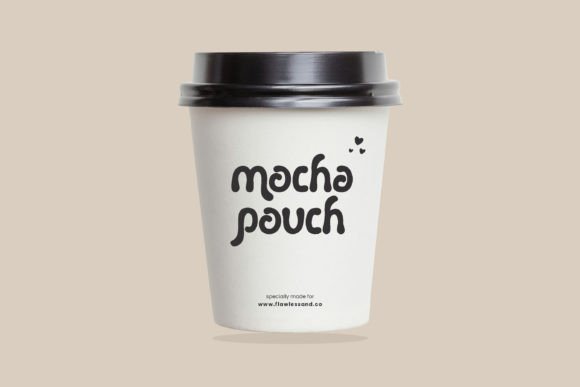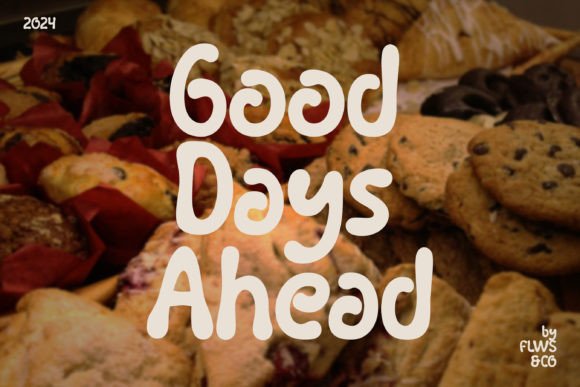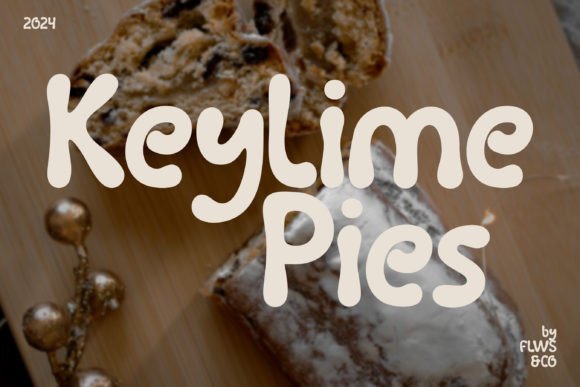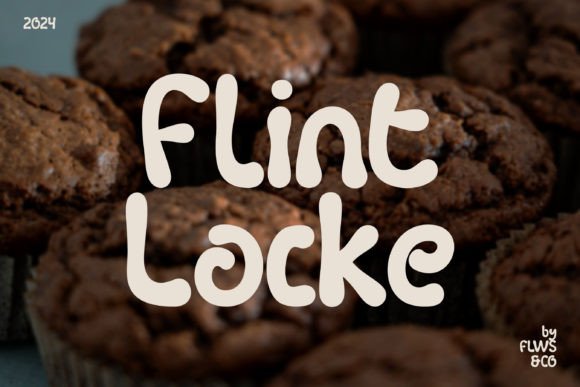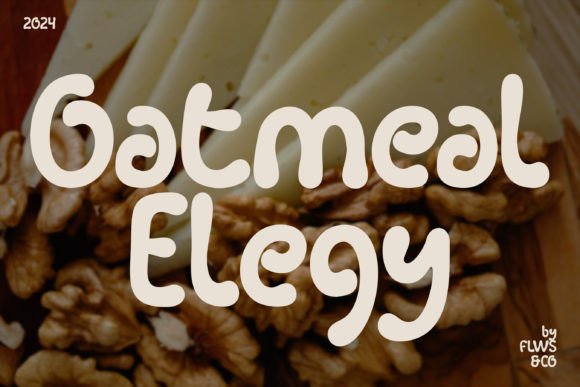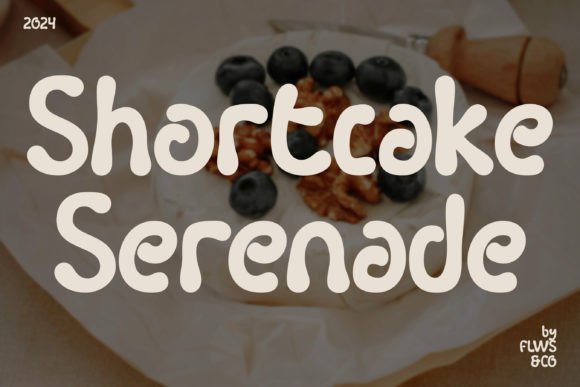
Introducing Choco Fantine Font: The Playful yet Professional Display Font for Your Brand
In the world of typography, a font can make or break a brand’s identity. It’s the first thing that catches the eye and sets the tone for the entire brand experience. If you’re a designer, crafty entrepreneur, or simply someone who loves to dabble in creative projects, you’re likely always on the lookout for the perfect font to elevate your work. That’s where Choco Fantine comes in – a delightful display font designed to bring a playful yet professional touch to your brand.
The Charm of Choco Fantine
Choco Fantine is a bold and eye-catching font that adds personality and charm to any design. Its unique letterforms are carefully crafted to make a statement, making it perfect for logo creation, packaging, and other branding materials. Whether you’re looking to create a whimsical brand or simply want to add some flair to your project, Choco Fantine is sure to impress.
Key Features of Choco Fantine Font
• Playful yet Professional: Choco Fantine strikes the perfect balance between playfulness and professionalism, making it suitable for a wide range of design projects.
• Bold and Eye-Catching: The font’s bold letterforms are designed to grab attention and make a statement.
• Unique Personality: Choco Fantine has a distinct personality that sets it apart from other fonts, making it perfect for brands that want to stand out.
• Versatile: The font is suitable for a variety of design projects, including logo creation, packaging, posters, and more.
Why Choose Choco Fantine Font?
With so many fonts available, why choose Choco Fantine? Here are just a few reasons why designers and crafters love this delightful display font:
• Adds Personality: Choco Fantine adds a touch of personality and whimsy to any design, making it perfect for brands that want to stand out.
• Easy to Read: Despite its bold and playful design, Choco Fantine is easy to read, making it suitable for a wide range of applications.
• Customizable: The font is highly customizable, allowing you to adjust the lettering, spacing, and more to fit your brand’s unique needs.
• High-Quality: Choco Fantine is a high-quality font designed with precision and attention to detail, ensuring that it looks great in any design.
How to Use Choco Fantine Font in Your Design Projects
Ready to add Choco Fantine to your design toolkit? Here are a few ways you can use this delightful display font in your projects:
• Logo Creation: Use Choco Fantine to create a bold and eye-catching logo that sets your brand apart.
• Packaging Design: Add a touch of personality to your packaging with Choco Fantine, making your products stand out on store shelves.
• Posters and Flyers: Use Choco Fantine to create eye-catching posters and flyers that grab attention and communicate your message.
• Branding Materials: From business cards to letterheads, Choco Fantine is perfect for creating a cohesive brand identity.
In conclusion, Choco Fantine is a delightful display font that’s sure to bring a playful yet professional touch to your brand. With its bold and eye-catching letterforms, unique personality, and versatility, it’s the perfect addition to any design toolkit. Whether you’re a designer, crafty entrepreneur, or simply someone who loves to dabble in creative projects, Choco Fantine is a must-have font that’s sure to elevate your work.